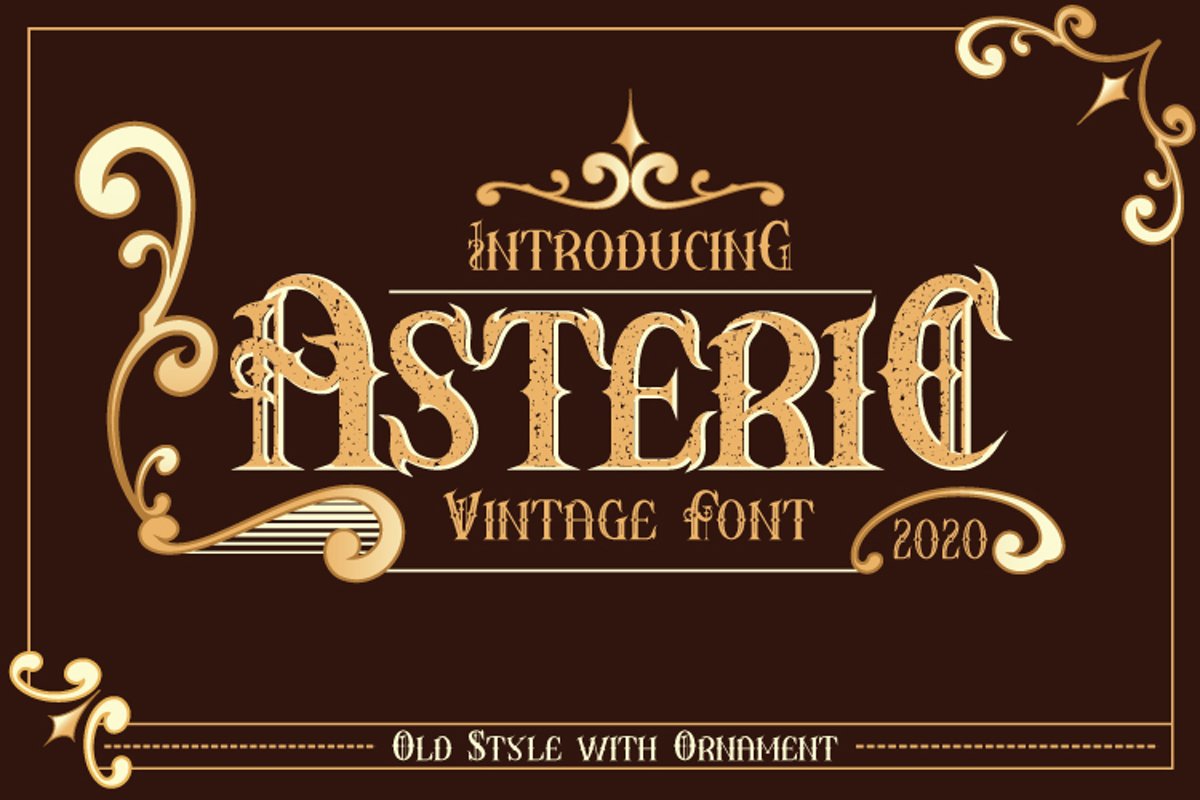
AsteriC Vintage
AsteriC Vintage Ornament
AsteriC Vintage
AsteriC Vintage Display
AsteriC Vintage Rough
AsteriC Vintage is a retro-style font with a touch of luxury combined with amazing ornaments. AsteriC Vintage has 3 styles namely Rough, Display, and Basic.
Rough Style has a characteristic that resembles rust on each character, thus creating results that seem strong and hard. Display Style is a very style suitable for display, with the characteristics it brings makes every work created becomes luxurious wrapped in a classic atmosphere. Basic Style is a style that has a clean character but still carries a classic scent thick and unique. This style is very suitable for use in magazines, books, newspapers, etc.
AsteriC Vintage font also presents 26 beautiful and luxurious ornaments that can be combined with classic nuanced fonts which is expected to support any results to be more maximal and elegant.